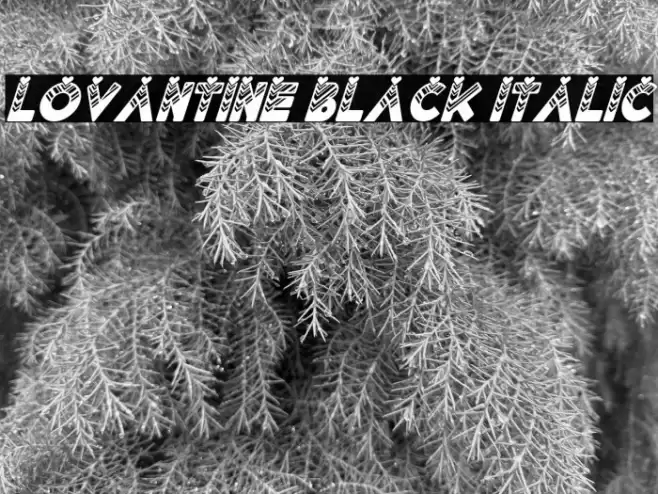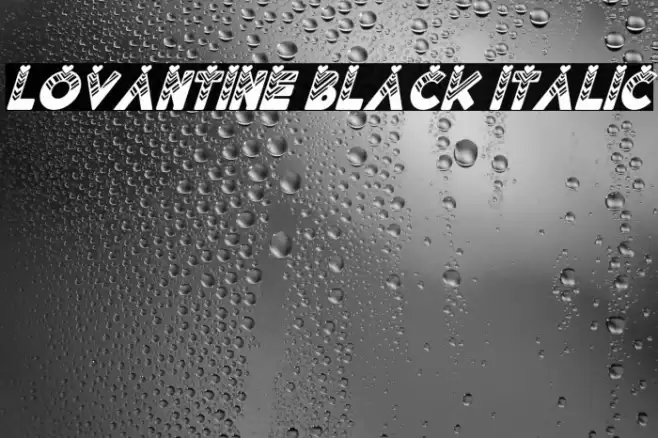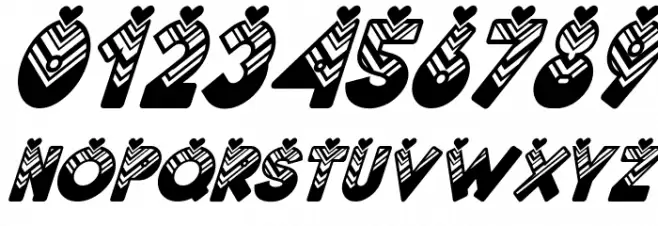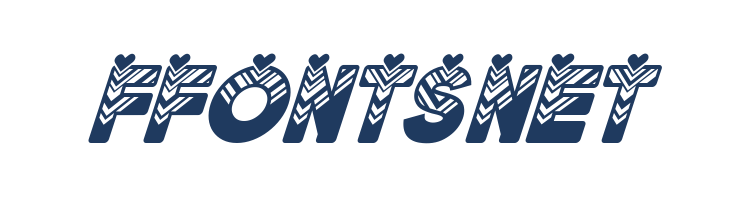
Lovantine Black italic Font
Lovantine Black italic Description
This font features a bold and playful design with a distinct decorative flair. Each character is adorned with heart motifs, adding a whimsical and romantic touch. The strokes are thick and consistent, providing a strong visual impact. The italic slant enhances its dynamic appearance, making it suitable for eye-catching designs. The characters are well-spaced, ensuring readability while maintaining their unique style. This font is perfect for projects that require a fun and engaging aesthetic, such as greeting cards, posters, or playful branding.
A bold, italic, decorative font with heart motifs and a playful style from Regular fonts.
- Proposed Projects: Ideal for greeting cards, playful branding, posters, and romantic-themed designs.